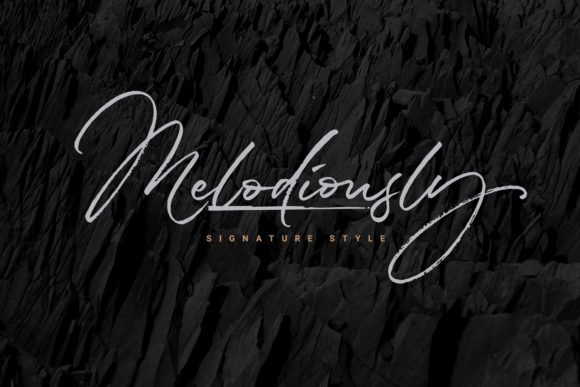
About Melodiously Script Font
Melodiously Script is a lovely and timeless handwritten font. It is the best choice for creating eye catching logos, branding and quotes. This font is PUA encoded which means you can access all of the glyphs and swashes with ease!Â